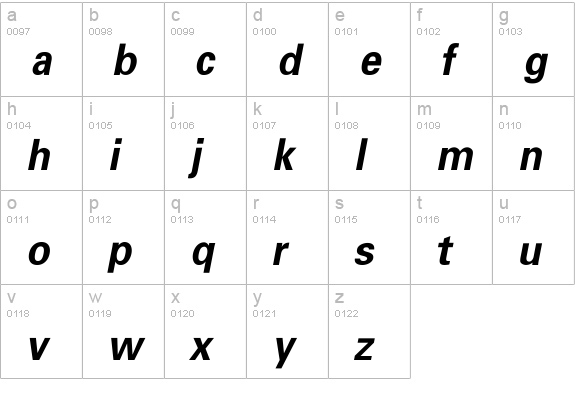
Beetham-BoldOblique font is a striking and elegant typeface that exudes a sense of sophistication and modernity. Its bold and oblique design adds a touch of flair and uniqueness to any project it is used in. The strong, slanted characters of Beetham-BoldOblique make it perfect for headlines, titles, and other prominent text elements. This versatile font is ideal for a wide range of design projects, from branding and advertising to packaging and editorial design. Its legibility and distinct style make it a popular choice among designers looking to make a bold statement with their typography. Best of all, Beetham-BoldOblique font is available for free download at FontsMarket.com. This means you can easily add this stylish and eye-catching typeface to your font library without any cost. Don't miss out on the opportunity to enhance your designs with the striking Beetham-BoldOblique font today!